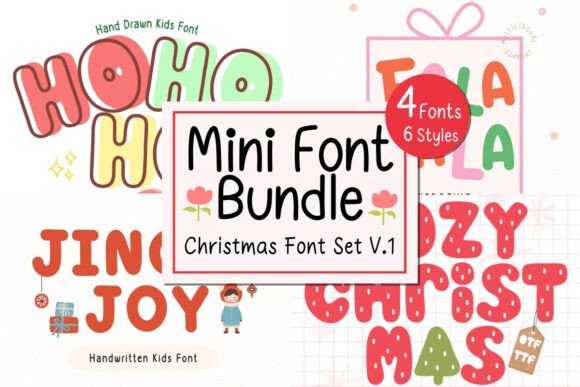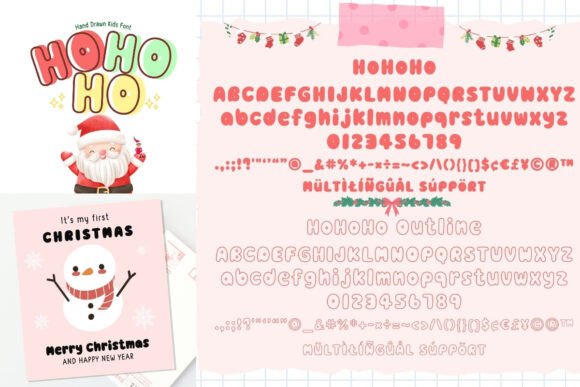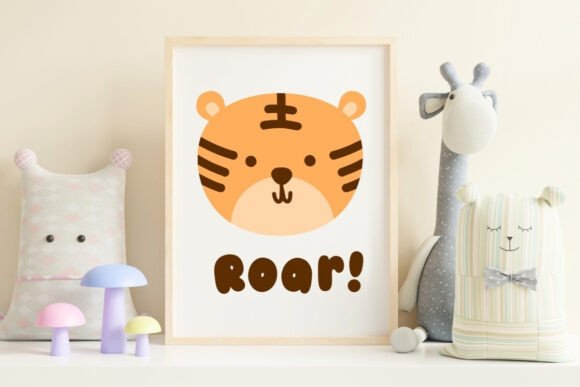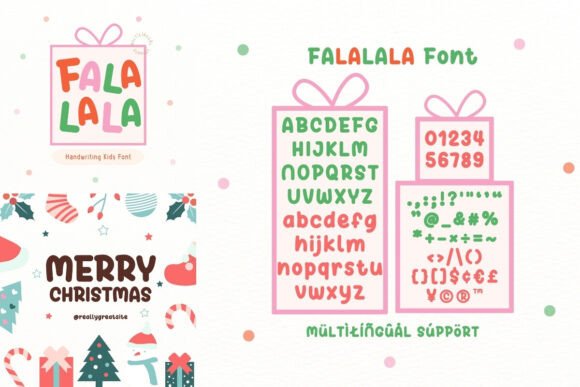
Mini Bundle Christmas Set V.1 Font
About the Mini Bundle Christmas Set V.1 Font
Get ready to be inspired by Mini Bundle Christmas Set V.1 Font, a fresh and dynamic typeface for modern creators. The “Christmas Font Set V.1” mini font bundle is a charming collection perfect for adding a festive, playful touch to your holiday designs. Featuring 4 delightful fonts in 6 styles, including fun and bubbly characters, each font is hand-drawn to bring out the joy and cheer of the season. Ideal for children’s projects, Christmas cards, crafts, and festive decor, this versatile set will make your creations stand out and capture the holiday spirit!
This playful hand-drawn style excels in headlines, short text blocks on packaging, and festive signage. Its charming character is perfect for branding projects targeting children or emphasizing a lighthearted, joyful aesthetic. However, the irregularity of the hand-drawn letters makes it unsuitable for body text or UI elements requiring high readability.
For optimal visual balance, pair these fonts with a clean sans-serif like Open Sans for body copy or a more geometric sans-serif such as Montserrat for a modern contrast. A classic serif font like Garamond could also provide an elegant counterpoint, depending on the desired overall effect.
The overall personality is undeniably cheerful and whimsical, making it a strong choice for projects requiring a festive, approachable feel. Avoid using it where a sense of sophistication or formality is paramount.
Mini Bundle Christmas Set V.1 Font Usage Examples
Mini Bundle Christmas Set V.1 Font Example